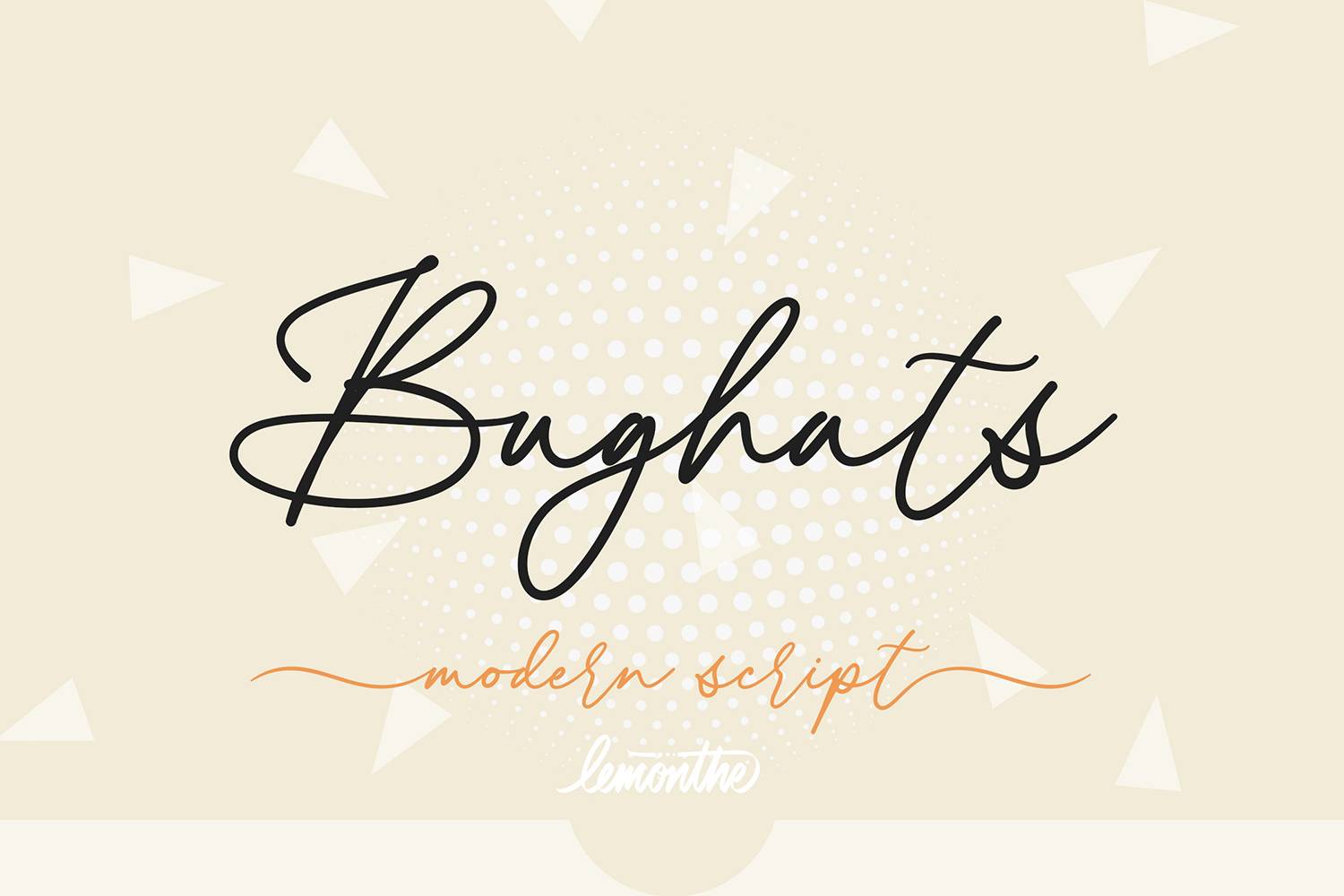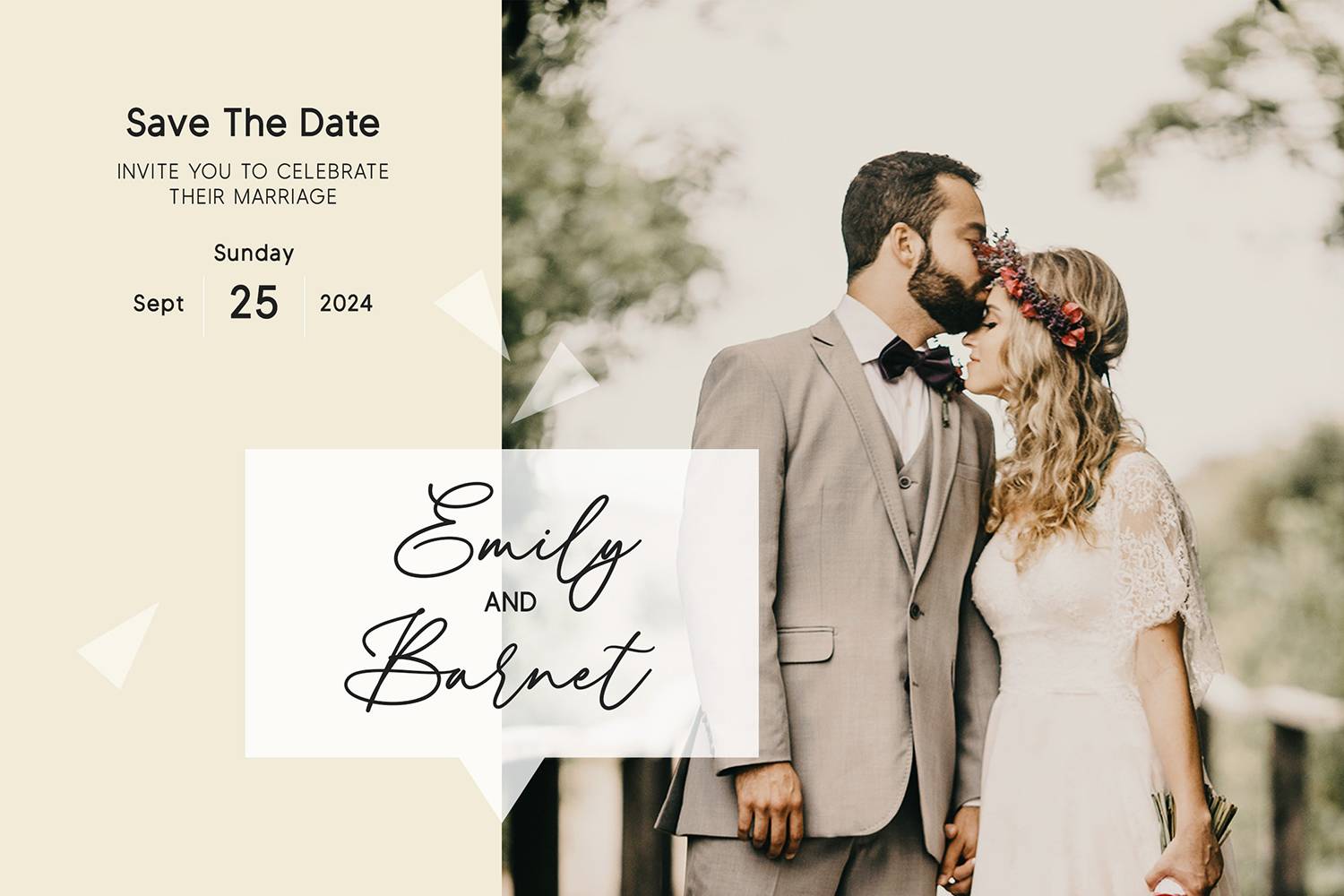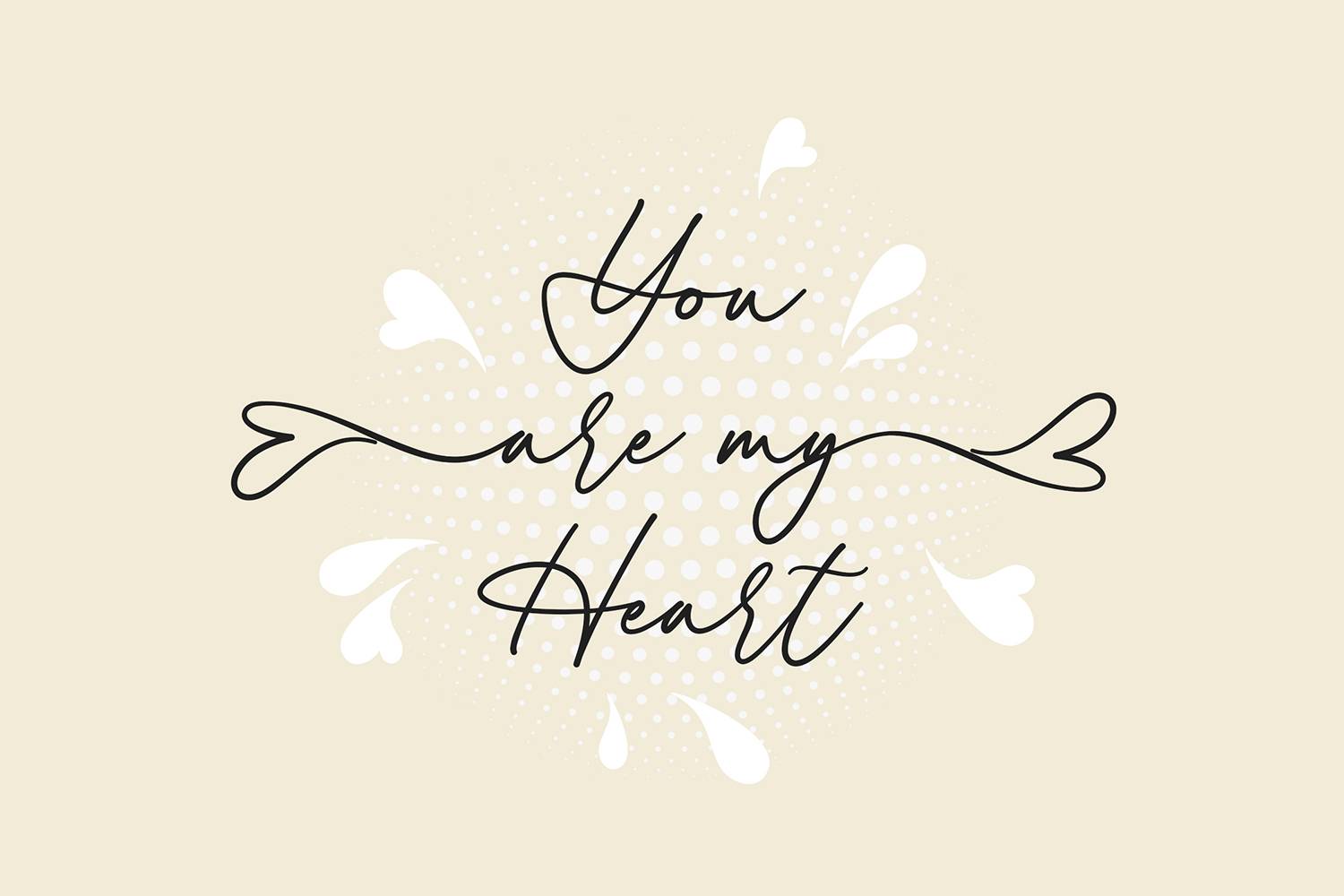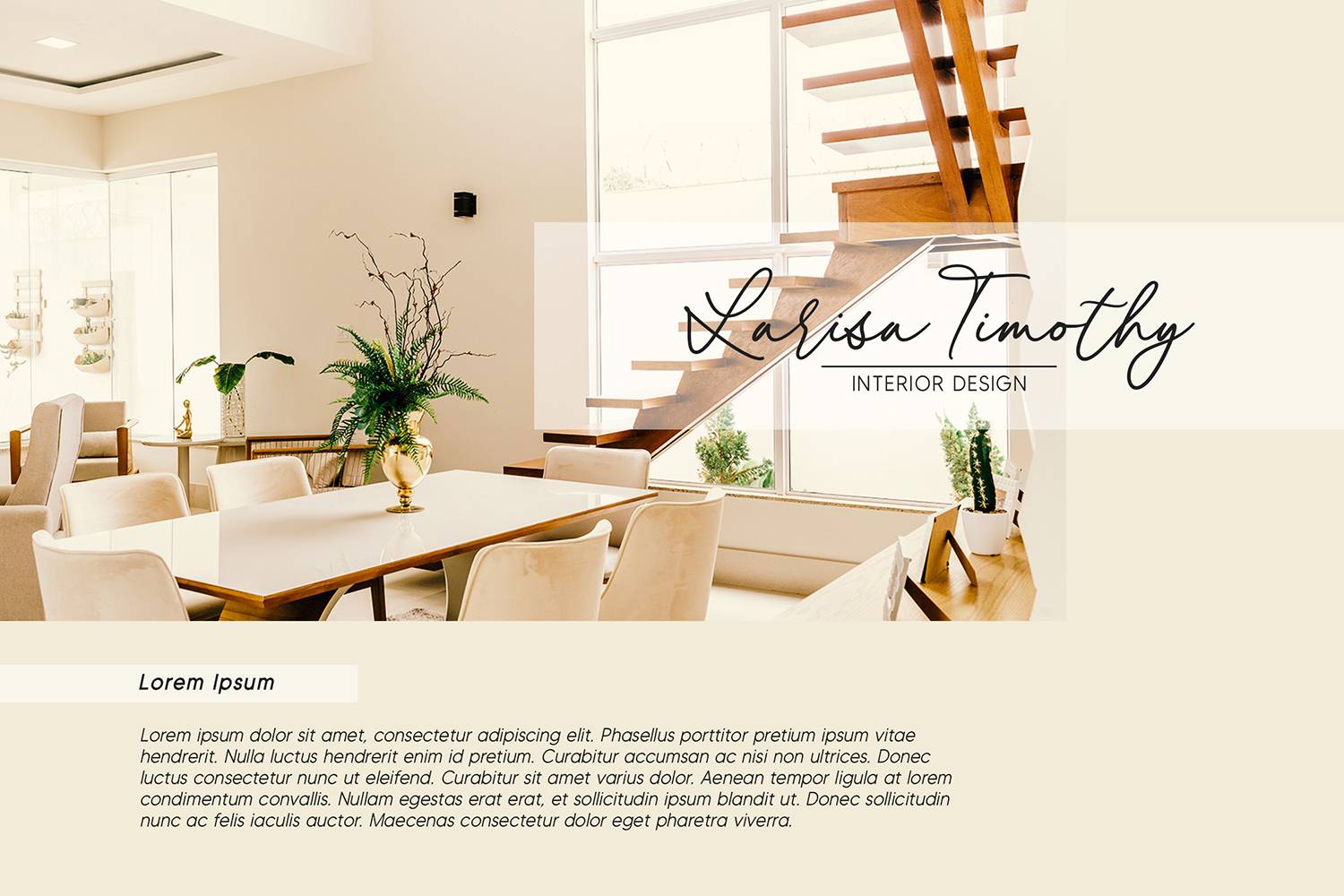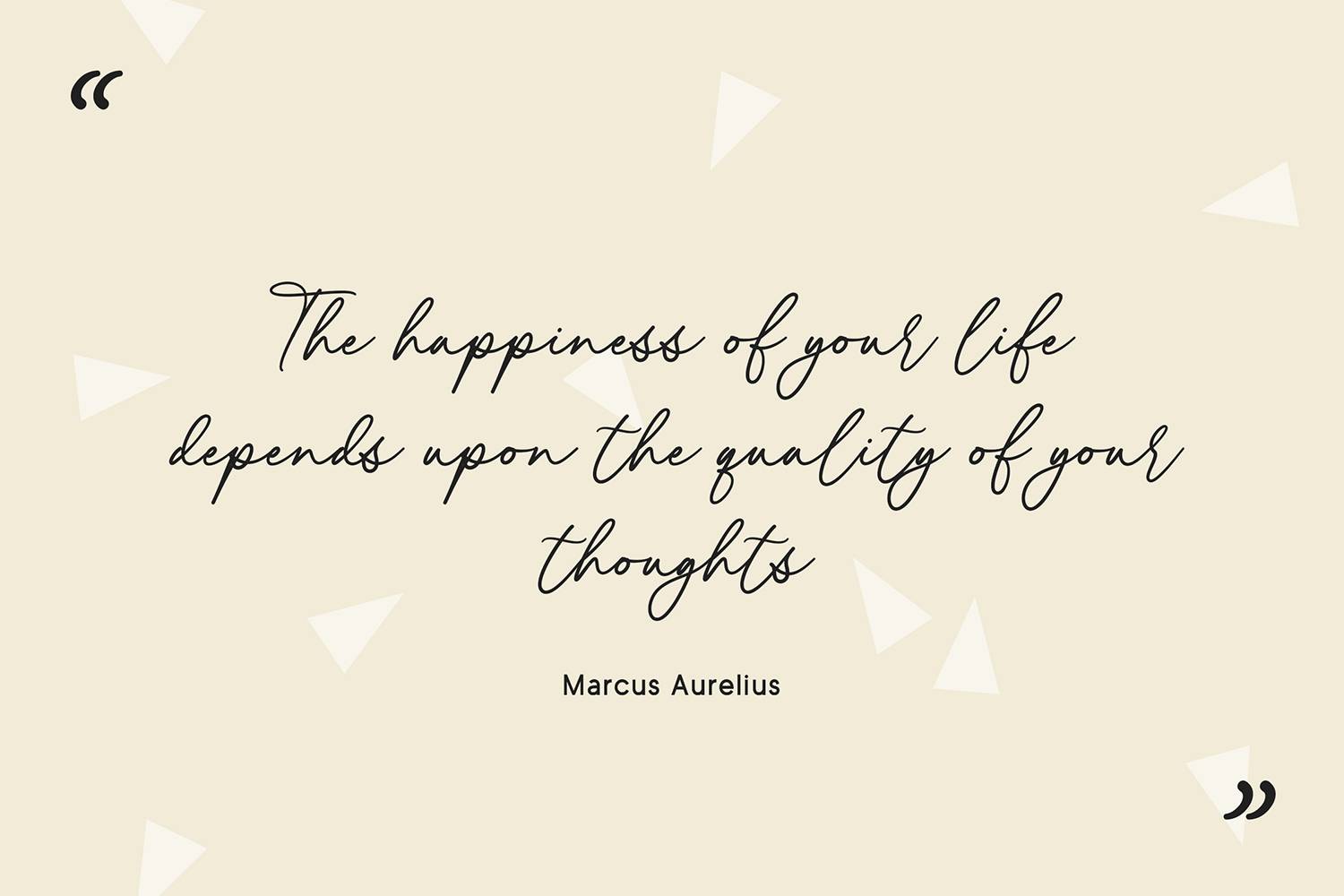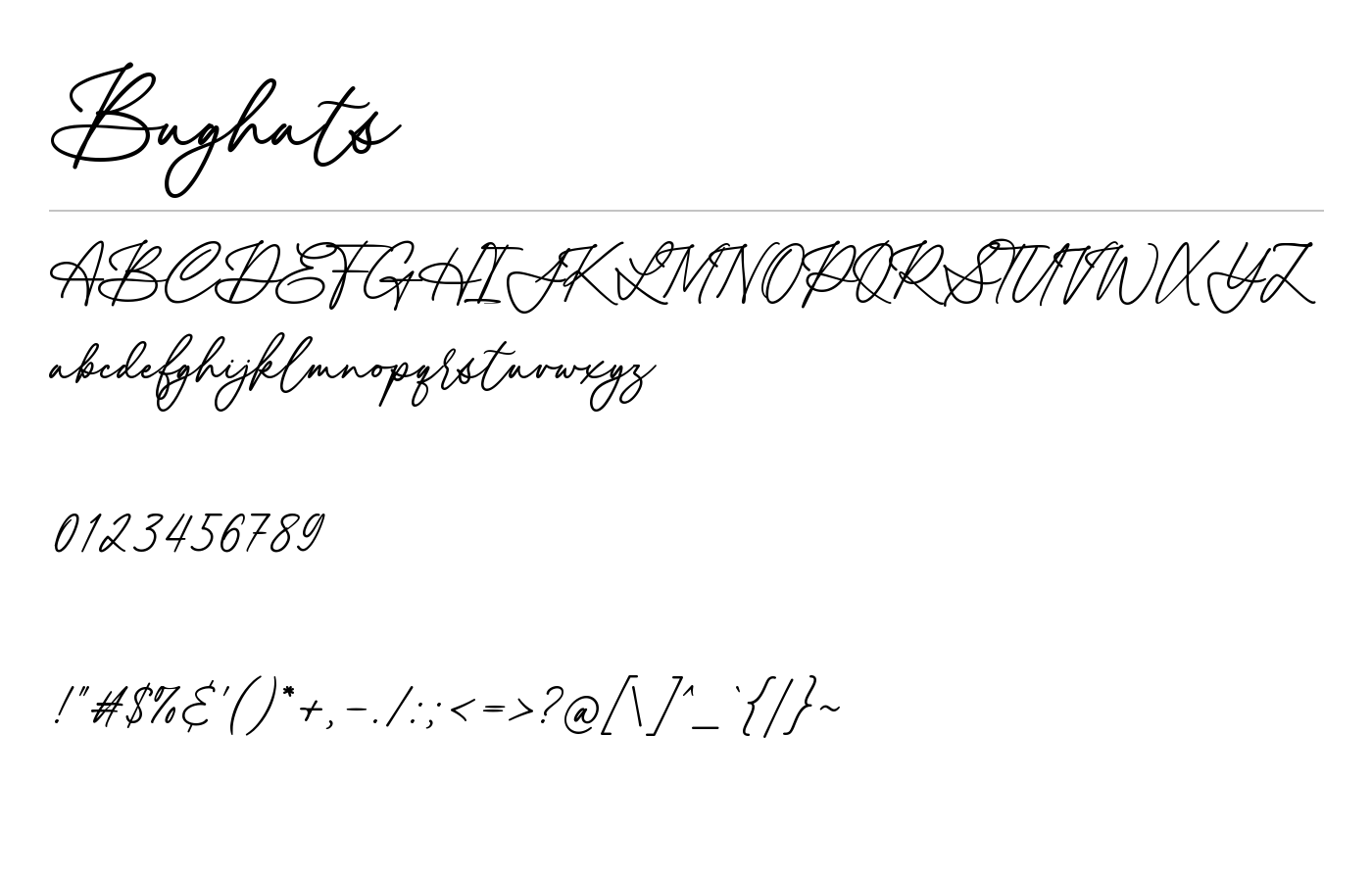
Bughats is an elegant script font featuring smooth, flowing strokes with a delicate and airy feel. Its light weight and handwritten style make it perfect for creative projects that seek a personal, stylish touch, such as invitations, branding, and feminine designs. This font works best in headlines or decorative uses where its graceful curves can shine.
Bughats Font
About Bughats Font
| Font family | Bughats Font |
| Designer | Dwi Ahidian |